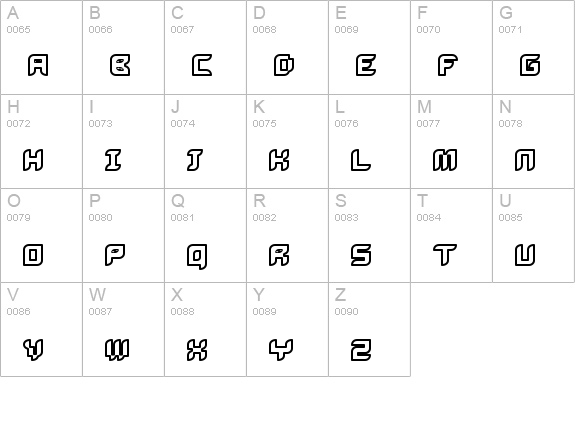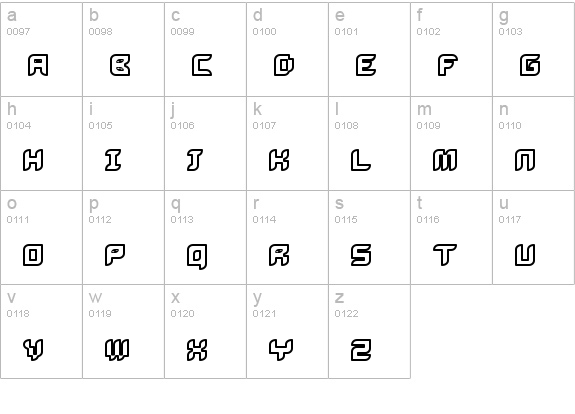
Bug2K font is a whimsical and playful typeface that brings a touch of fun to any design project. With its quirky and unique letterforms, Bug2K is perfect for adding a lighthearted and creative element to your work. This font exudes a sense of charm and character that is sure to make your text stand out. Best of all, Bug2K font is completely free to download at FontsMarket.com. Whether you're working on a poster, invitation, or any other design project, Bug2K is a fantastic choice for adding a touch of personality. Download Bug2K font today and let your creativity soar!